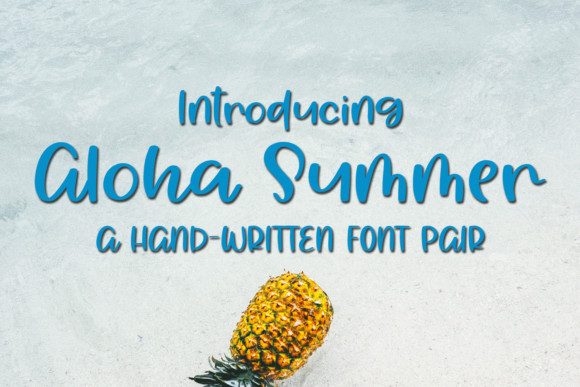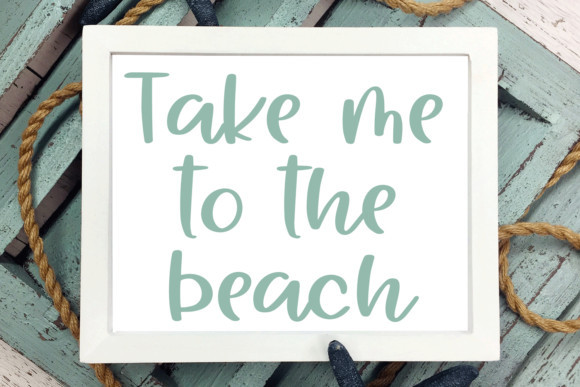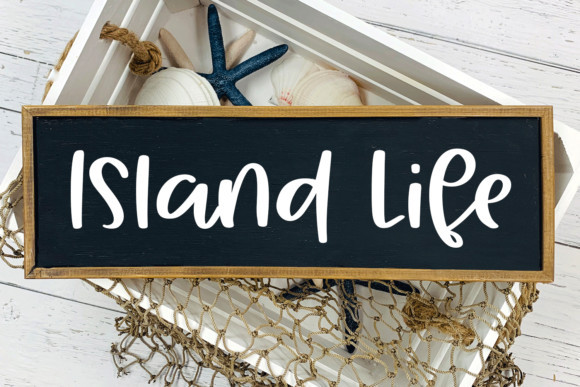
Aloha Summer Font
Aloha Summer is summery-light and playful, but also elegant. This versatile script font has a wide range of applications ranging from headlines to branding and DIY projects and is guaranteed to add a magical touch to your next design.